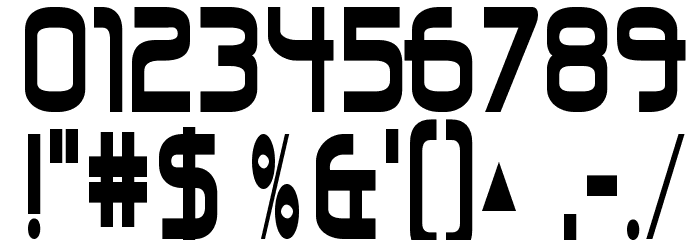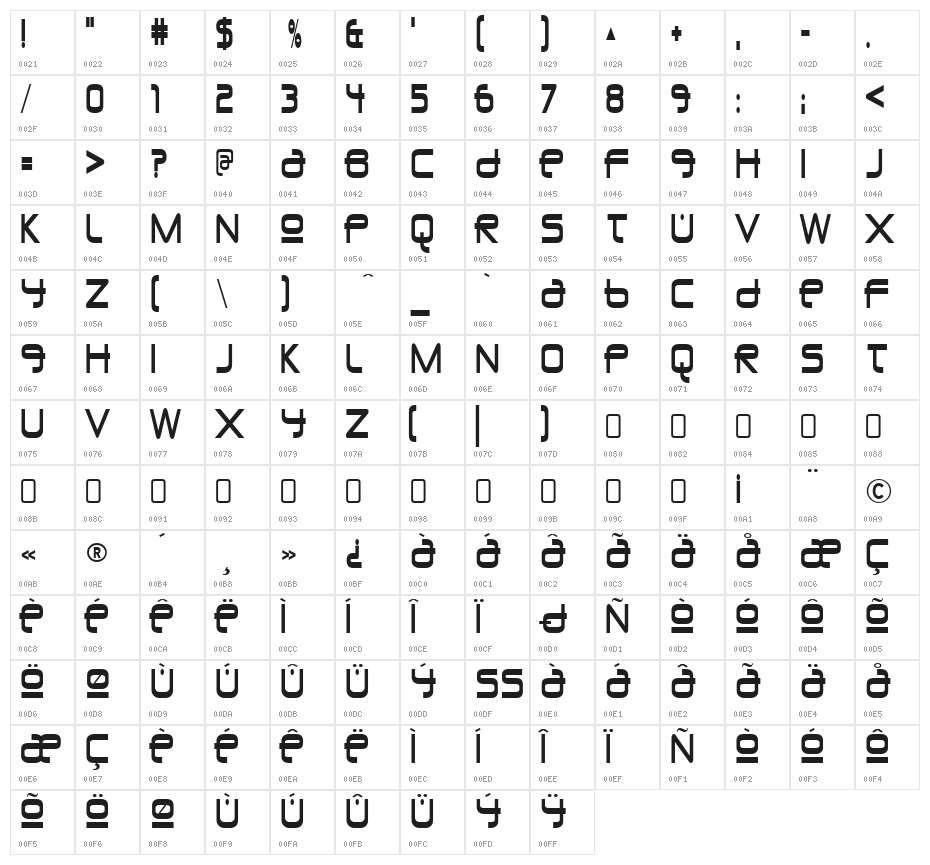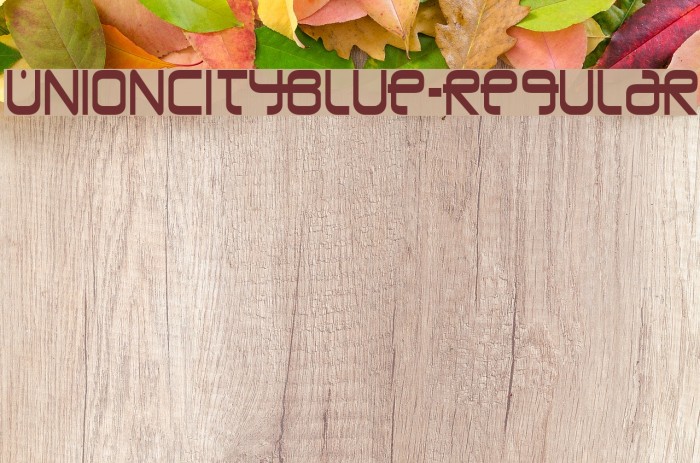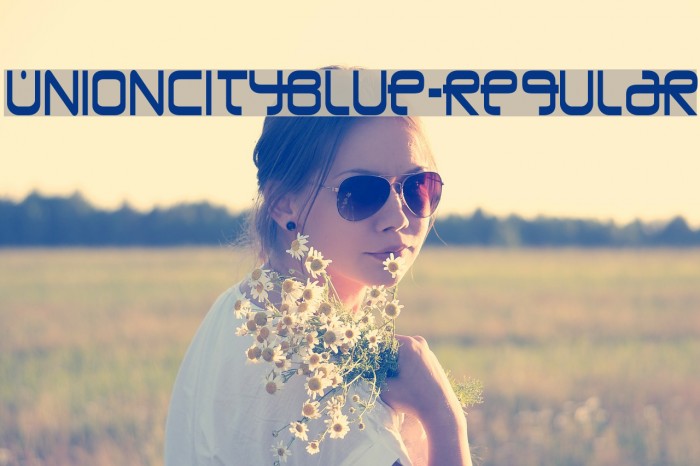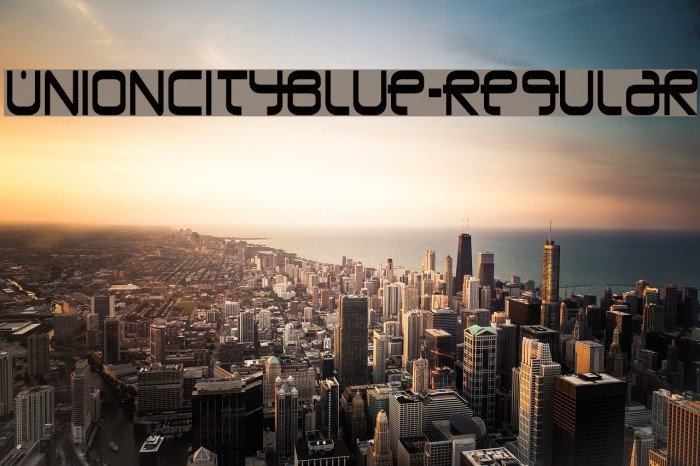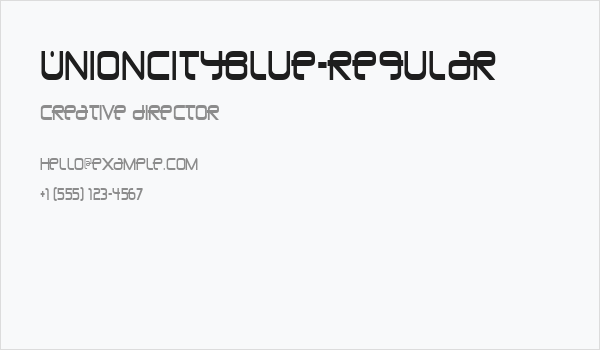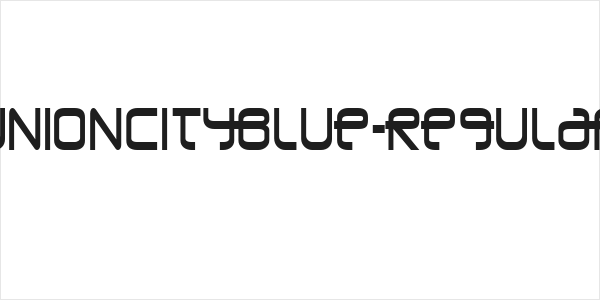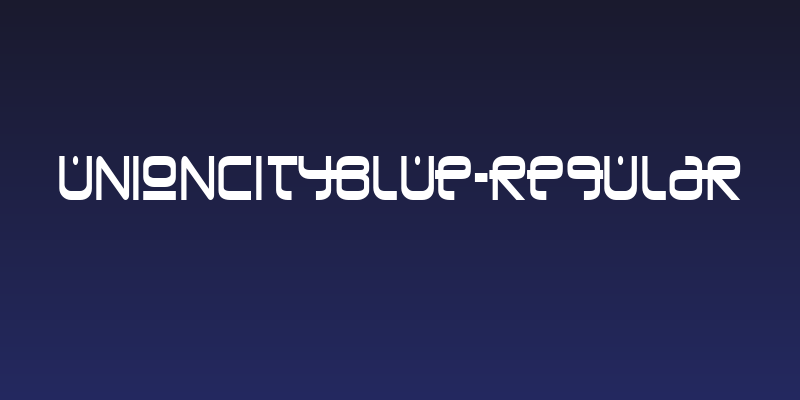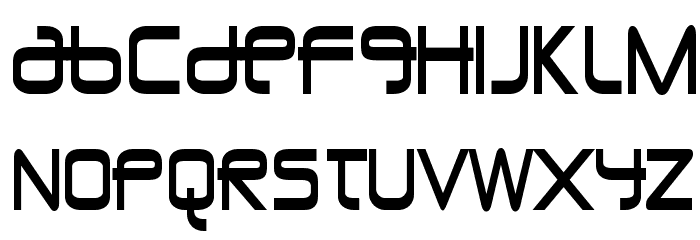
UnionCityBlue-Regular Font
UnionCityBlue-Regular Description
This font features a modern and futuristic design with a geometric structure. The characters are bold and have a uniform stroke width, giving them a strong presence. The rounded edges and unique shapes of certain letters, such as the 'a' and 'e', add a distinctive flair. The uppercase and lowercase letters maintain a consistent style, while the numerals are clear and easily readable. Special characters are well-integrated, maintaining the overall aesthetic. This font is suitable for projects that require a contemporary and tech-savvy look.
| Use Case | Headlines, Logos, Digital Interfaces |
| Proposed Projects | Ideal for technology branding, futuristic posters, digital interfaces, and modern advertising. |